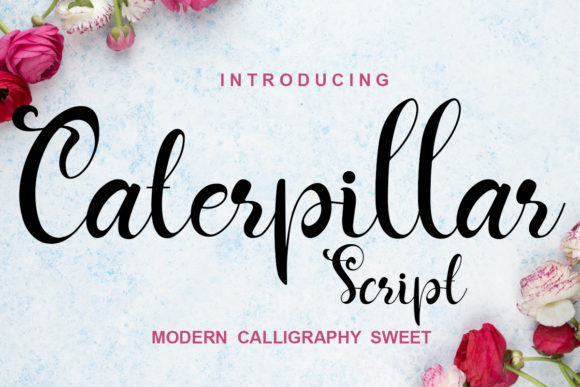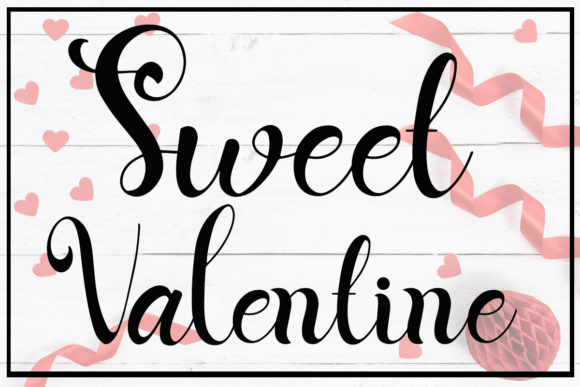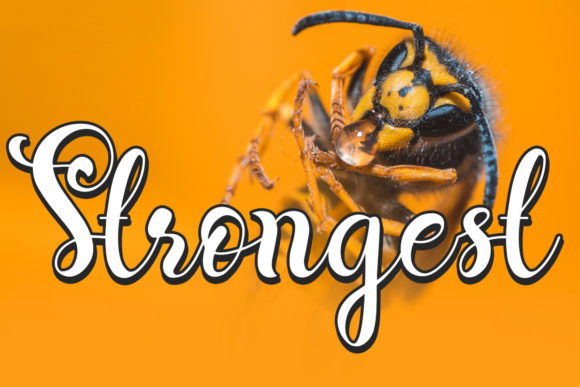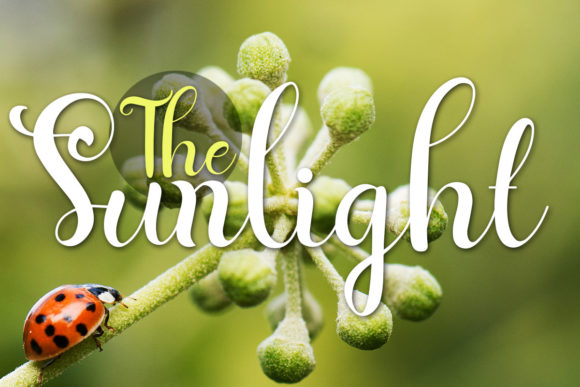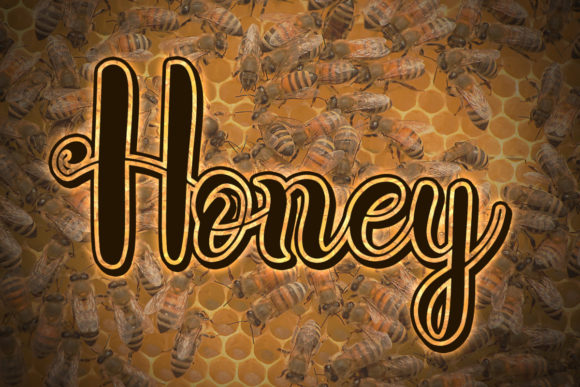
Caterpillar Script Font
About Caterpillar Script Font
Caterpillar Script feels equally charming and elegant. It looks stunning on wedding invitations, thank you cards, quotes, greeting cards, logos, business cards and every other design which needs a handwritten touch.